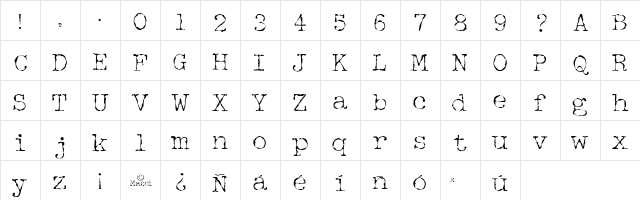
Complete Halbstarke Pica glyph index. Displaying only characters natively supported by Halbstarke Pica font.
Halbstarke is a composed and adaptable typeface that performs quietly and consistently across a wide range of design contexts.